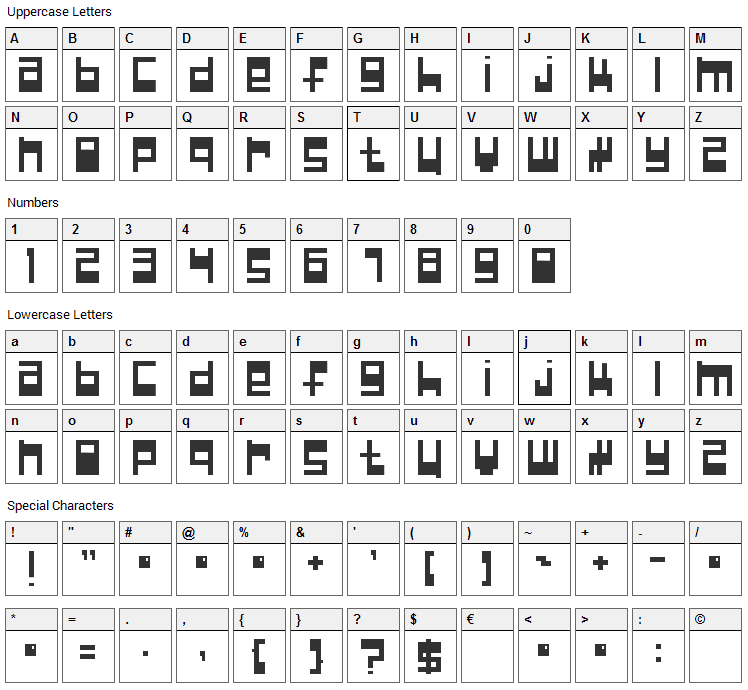
Null Pointer Font
Null Pointer font contains 100 defined characters and 55 unique glyphs.
- Designer:Tom Murphy 7
Created by Tom Murphy 7. This is a diagonal-less computerish font... Just look at it. [Divide By Zero] fonts: http://members.aol.com/vroomfonde/ttf/